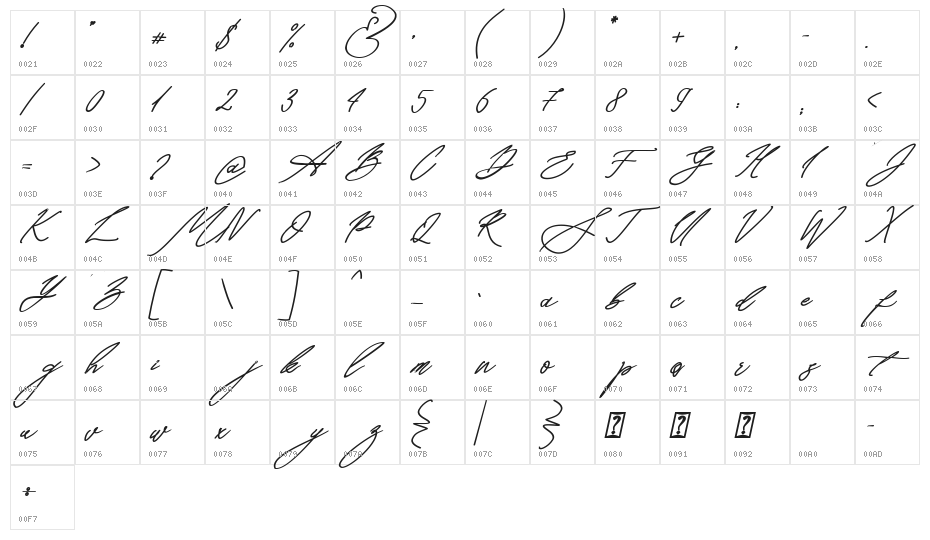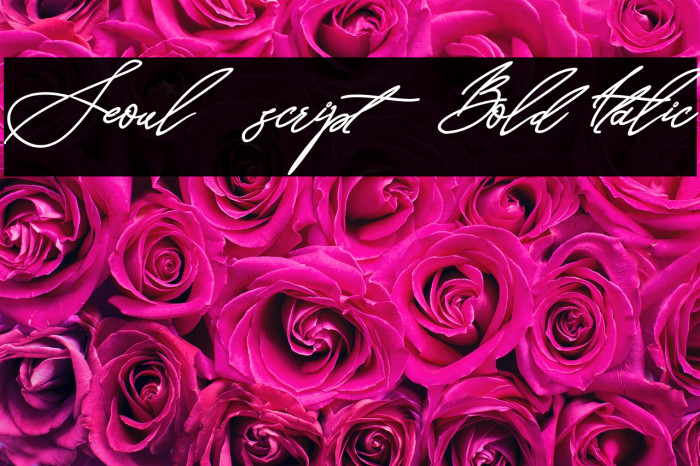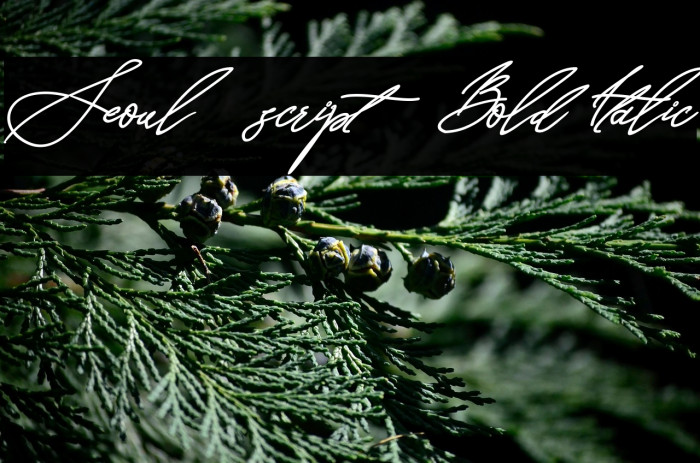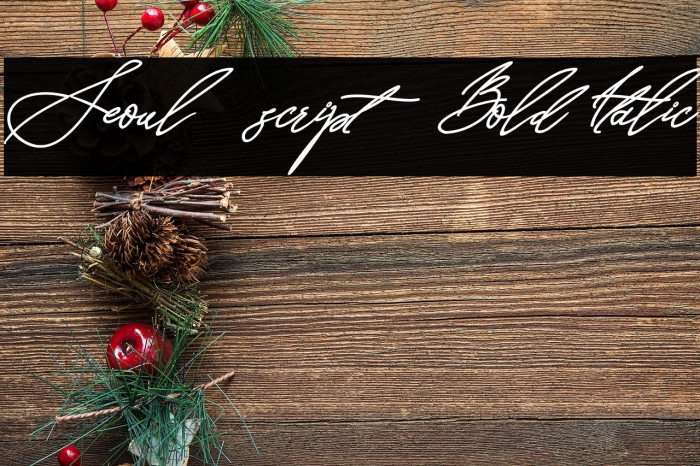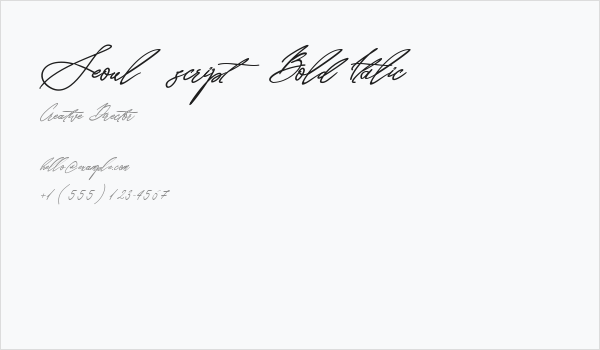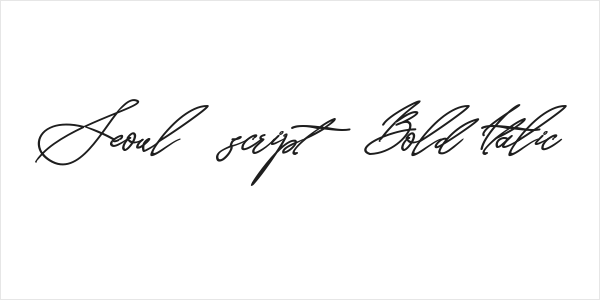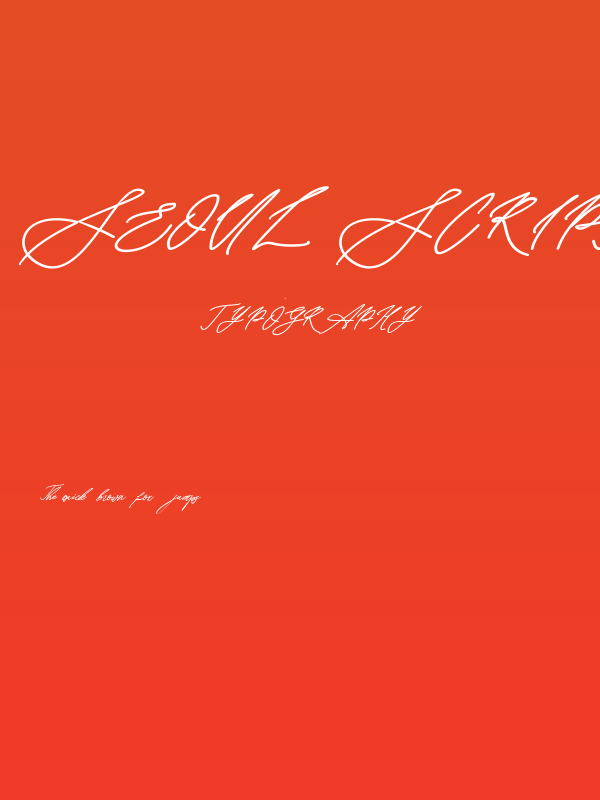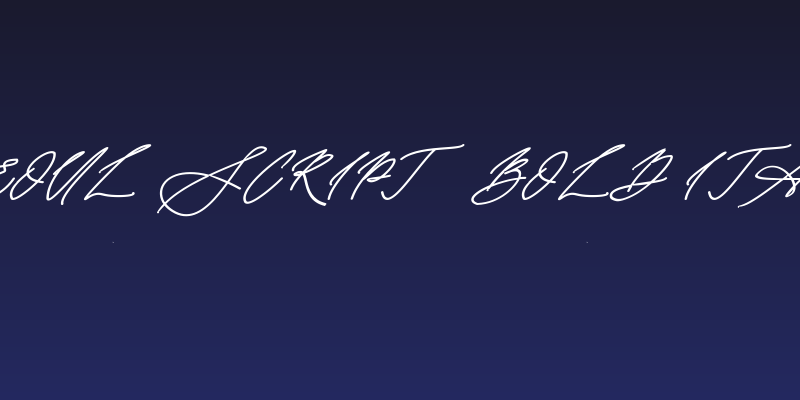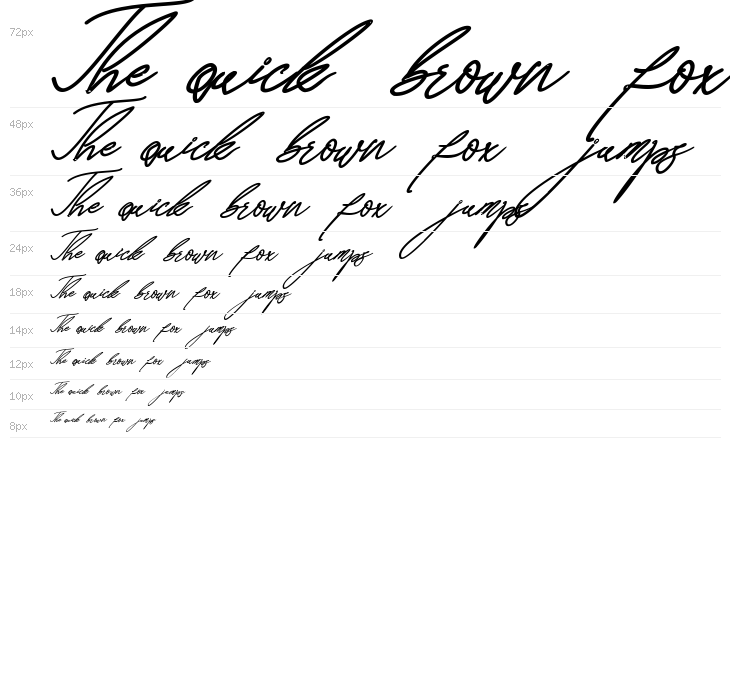
Seoul script Bold Italic Font
Seoul script Bold Italic Description
This font exhibits a dynamic and elegant script style, characterized by fluid, interconnected strokes that mimic the natural flow of handwriting. The bold and italic attributes enhance its expressiveness, making each character stand out with a distinct flair. The uppercase letters are gracefully elongated, while the lowercase letters maintain a consistent rhythm, contributing to a harmonious overall appearance. The numerals and special characters are crafted with the same attention to detail, ensuring uniformity across all elements. This font's high contrast in stroke thickness adds to its readability and visual impact, making it suitable for various creative applications.
| Overall Style | Elegant, Decorative |
| Proposed Projects | Ideal for wedding invitations, greeting cards, branding projects, and elegant logo designs. |